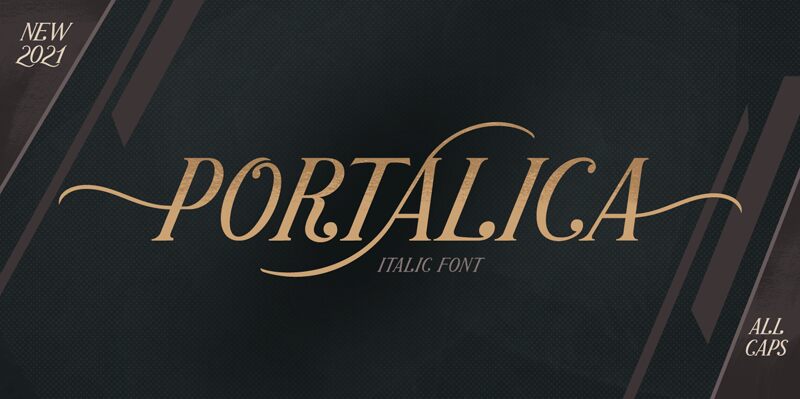
Portalica, the stunning semi-light serif font from Letterhend Studio, is a typography powerhouse that adds instant elegance to any design project. Its condensed width makes it perfect for headers and titles, while its unique style exudes sophistication and refinement. This versatile font is suitable for a wide range of projects, from wedding invitations and greeting cards to branding materials and editorial designs. With Portalica, you can effortlessly convey a sense of timeless beauty and class in your work. Elevate your creative output with this exquisite typeface today!